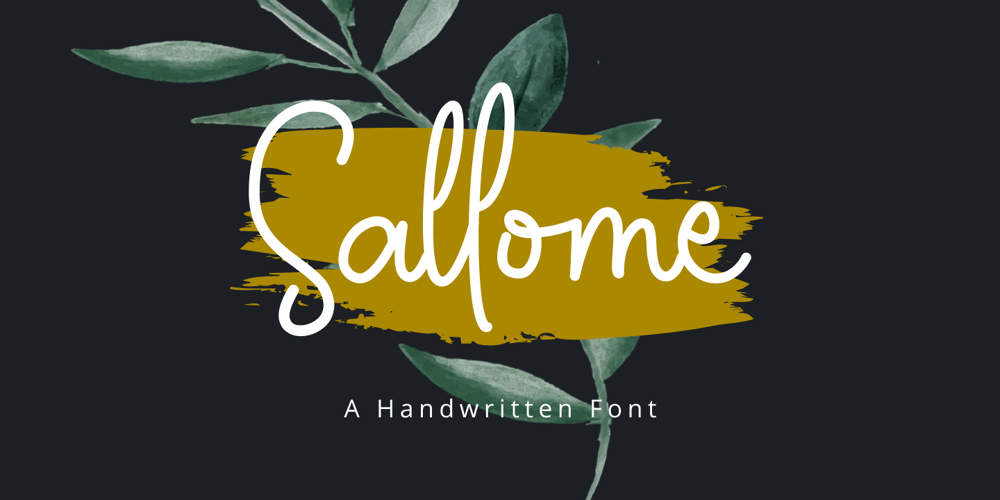
My Sallome Font Family was designed by Setiadi Rahagita and published by RahagitaType. My Sallome contains 1 styles and family package options. My Sallome is a beautiful script in a natural handwritten style. Its casual charm makes it appear wonderfully down-to-earth, readable and – ultimately – incredibly versatile. My Sallome will look outstanding in any context, whether it’s being used on busy backgrounds or as a standalone headline.